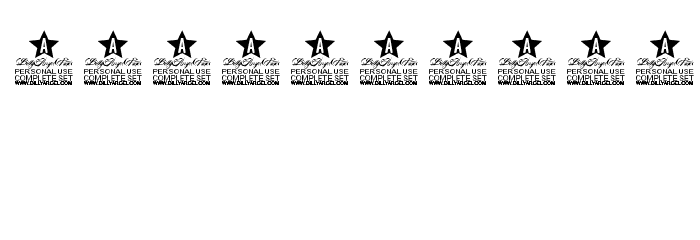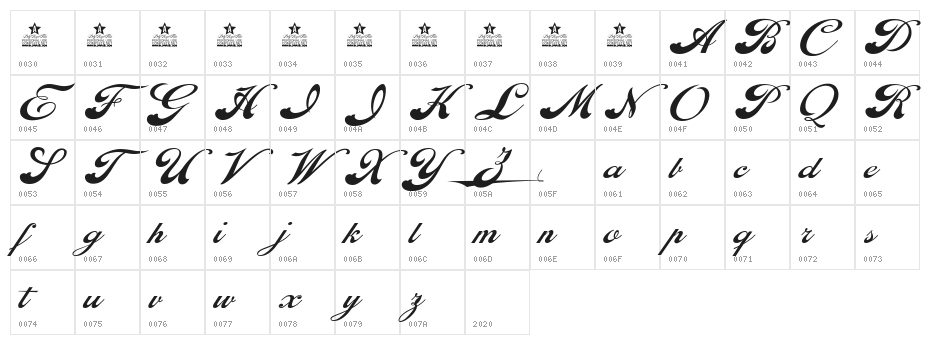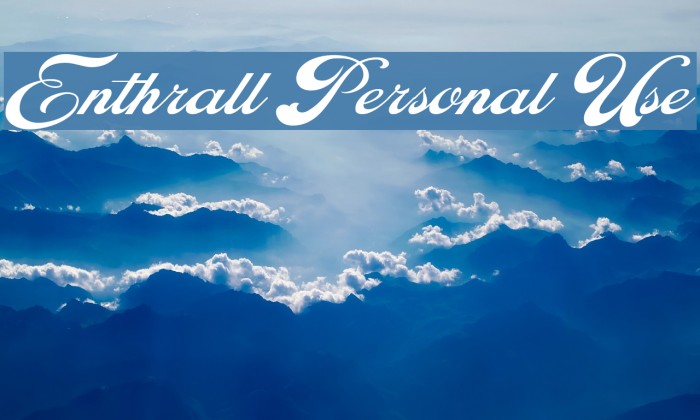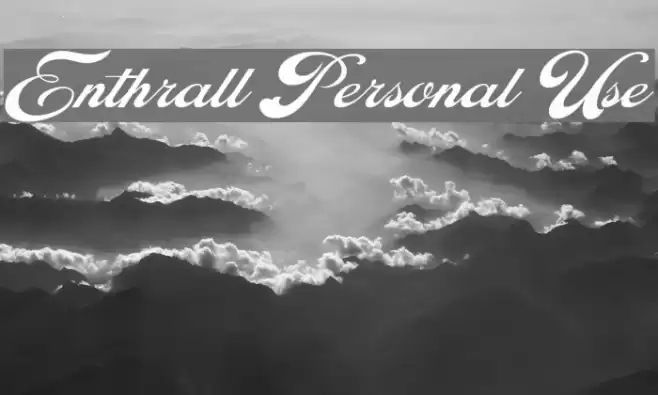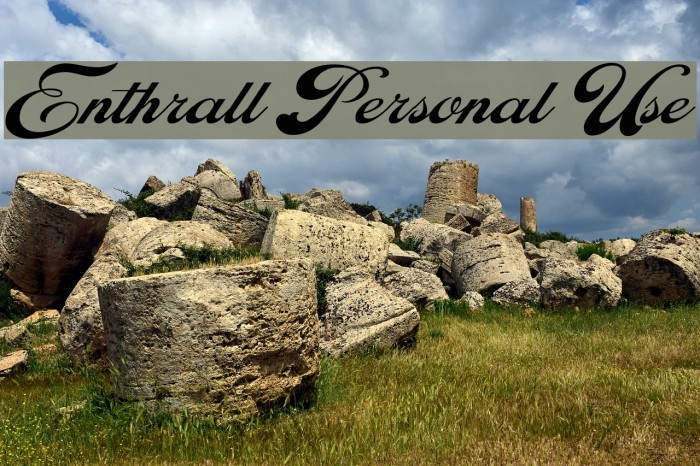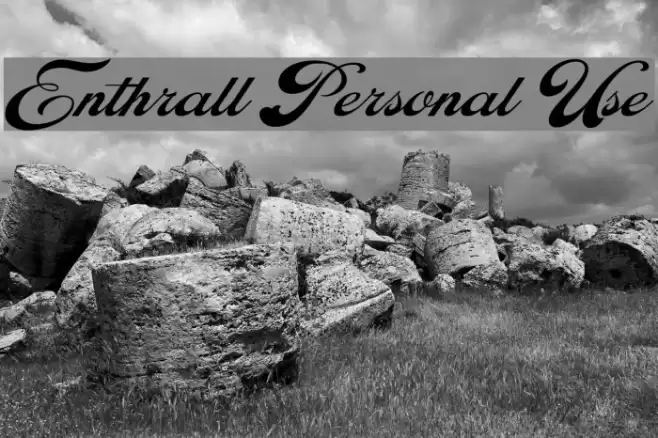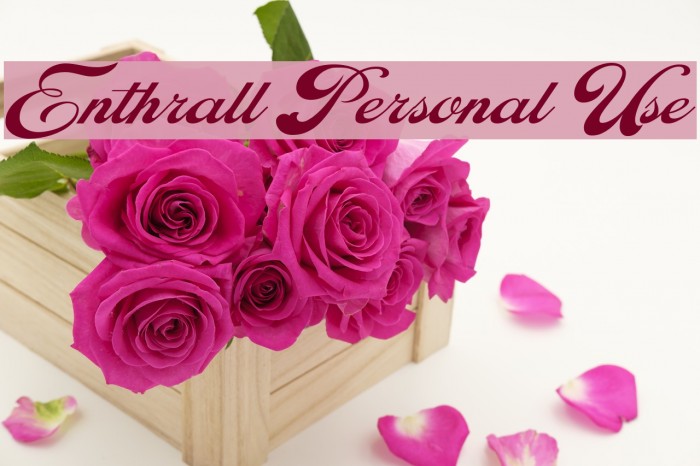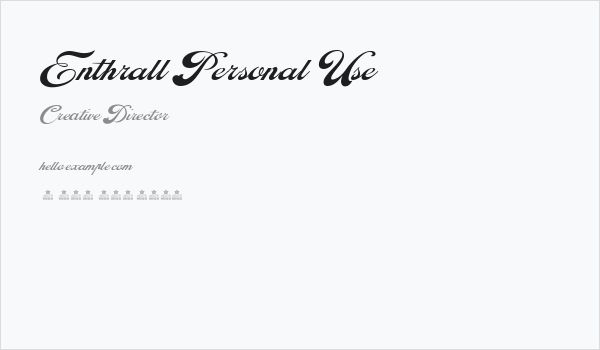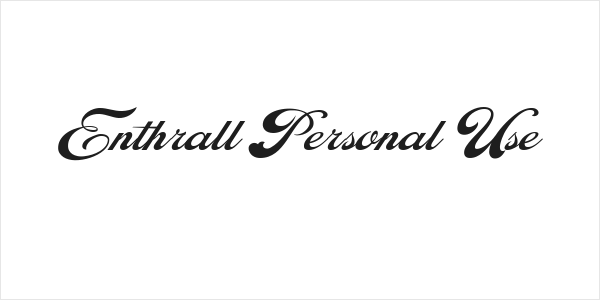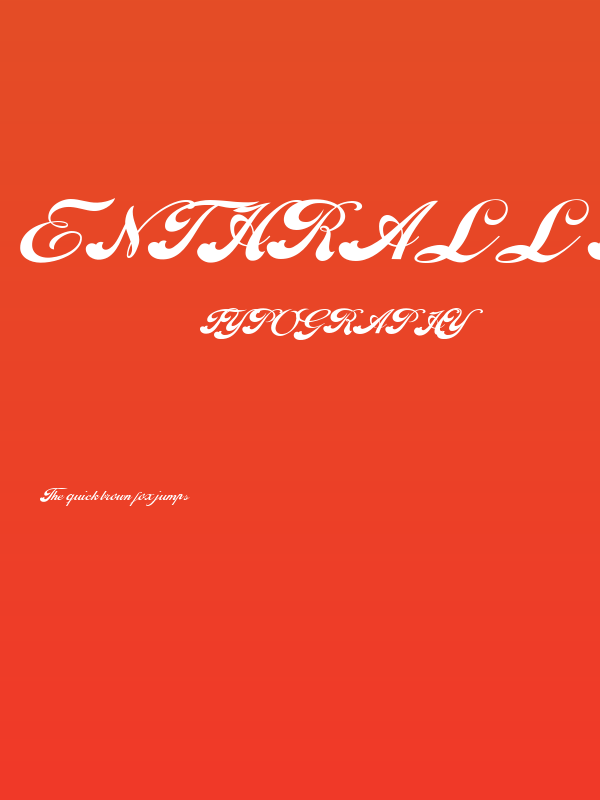
Enthrall Personal Use Font
Enthrall Personal Use Description
This font features an elegant and flowing script style, characterized by its ornate and decorative letterforms. The uppercase letters exhibit a sophisticated flair with intricate swashes and loops, while the lowercase letters maintain a graceful continuity. The overall design is reminiscent of classic calligraphy, offering a sense of refinement and artistry. The font's bold strokes and high contrast between thick and thin lines enhance its visual impact, making it suitable for creating striking headlines or decorative text elements. Its unique style is perfect for projects that require a touch of elegance and sophistication.
| Proposed Projects | Ideal for wedding invitations, luxury branding, elegant signage, and decorative headlines. |